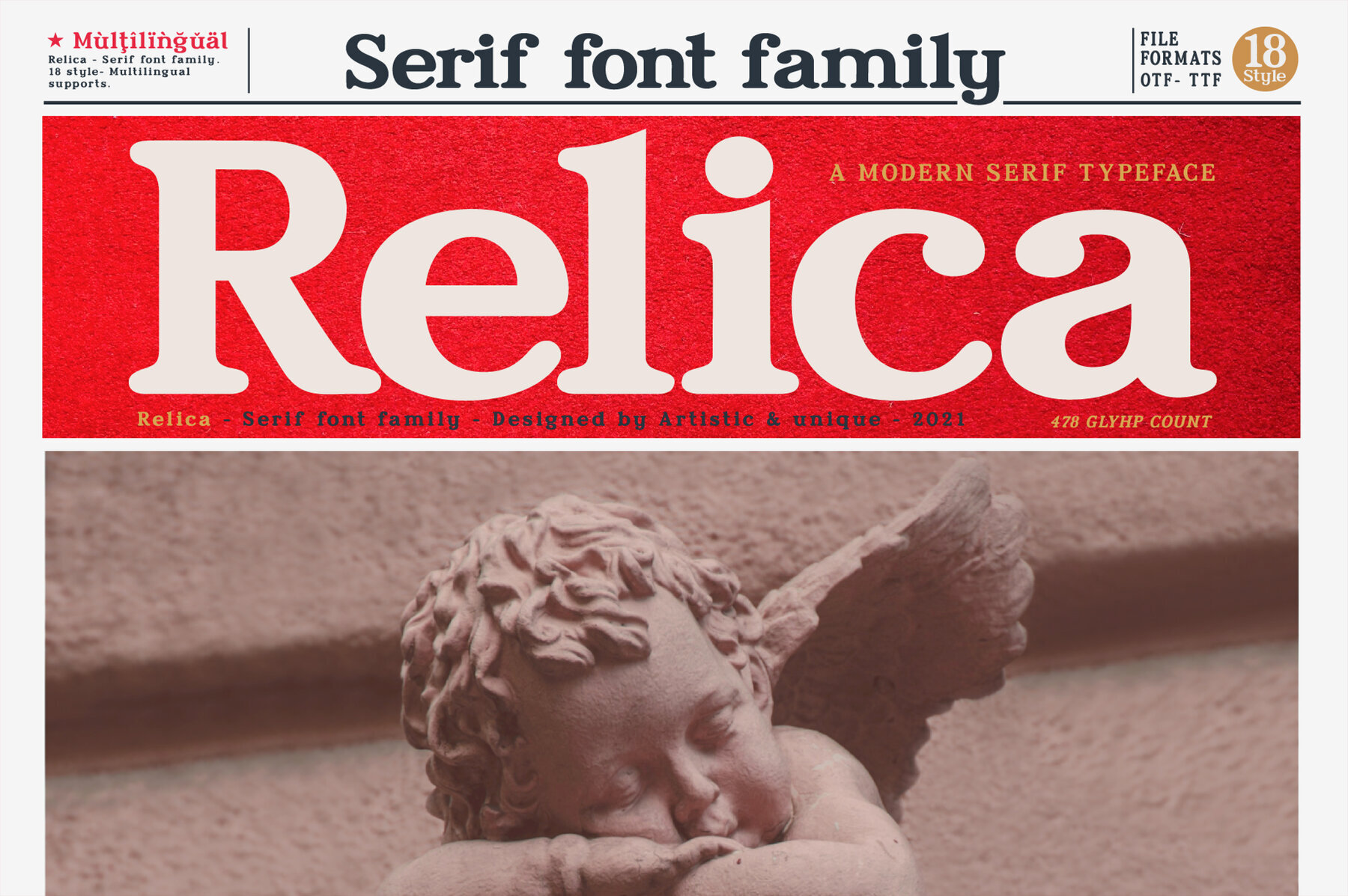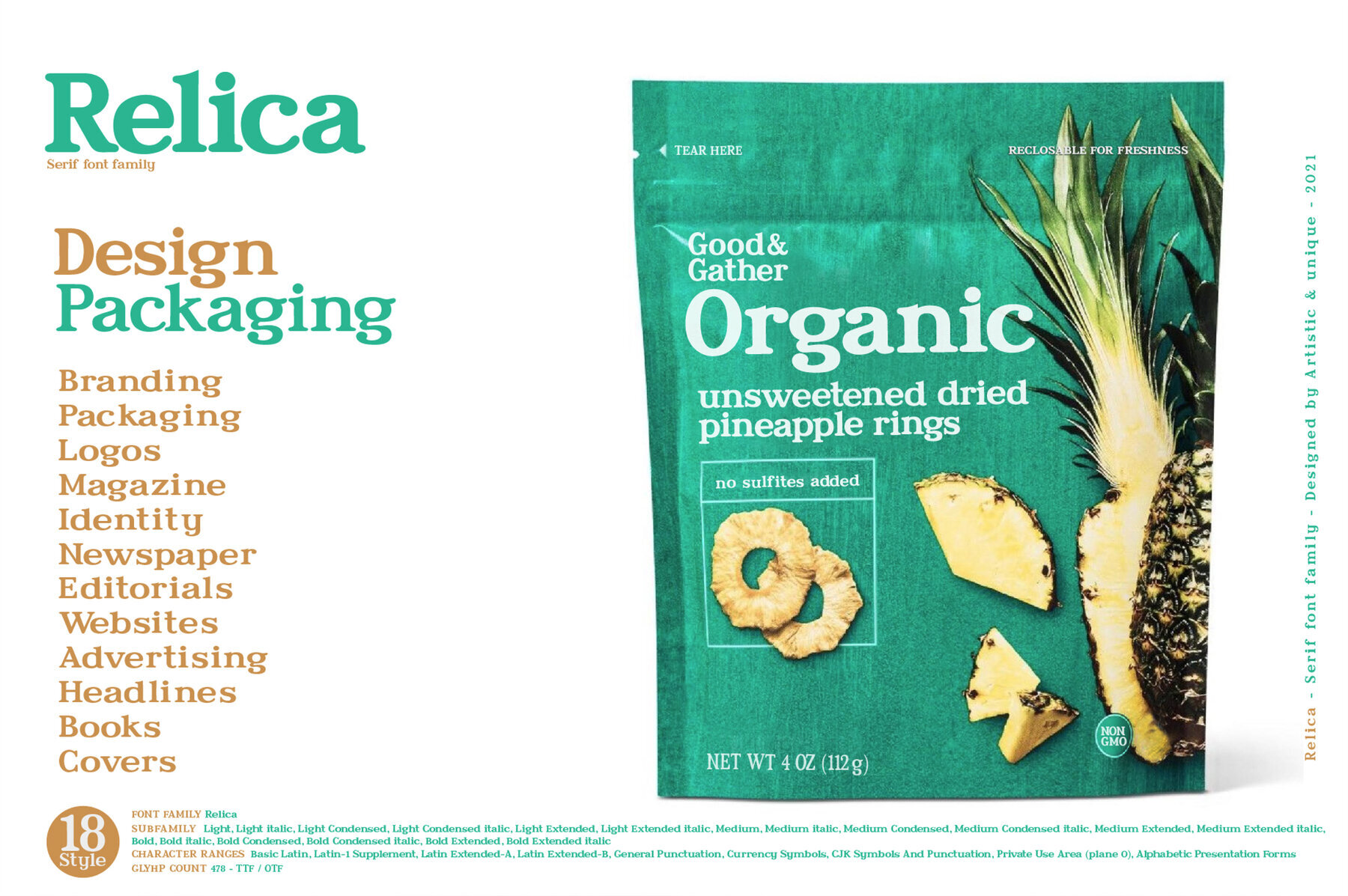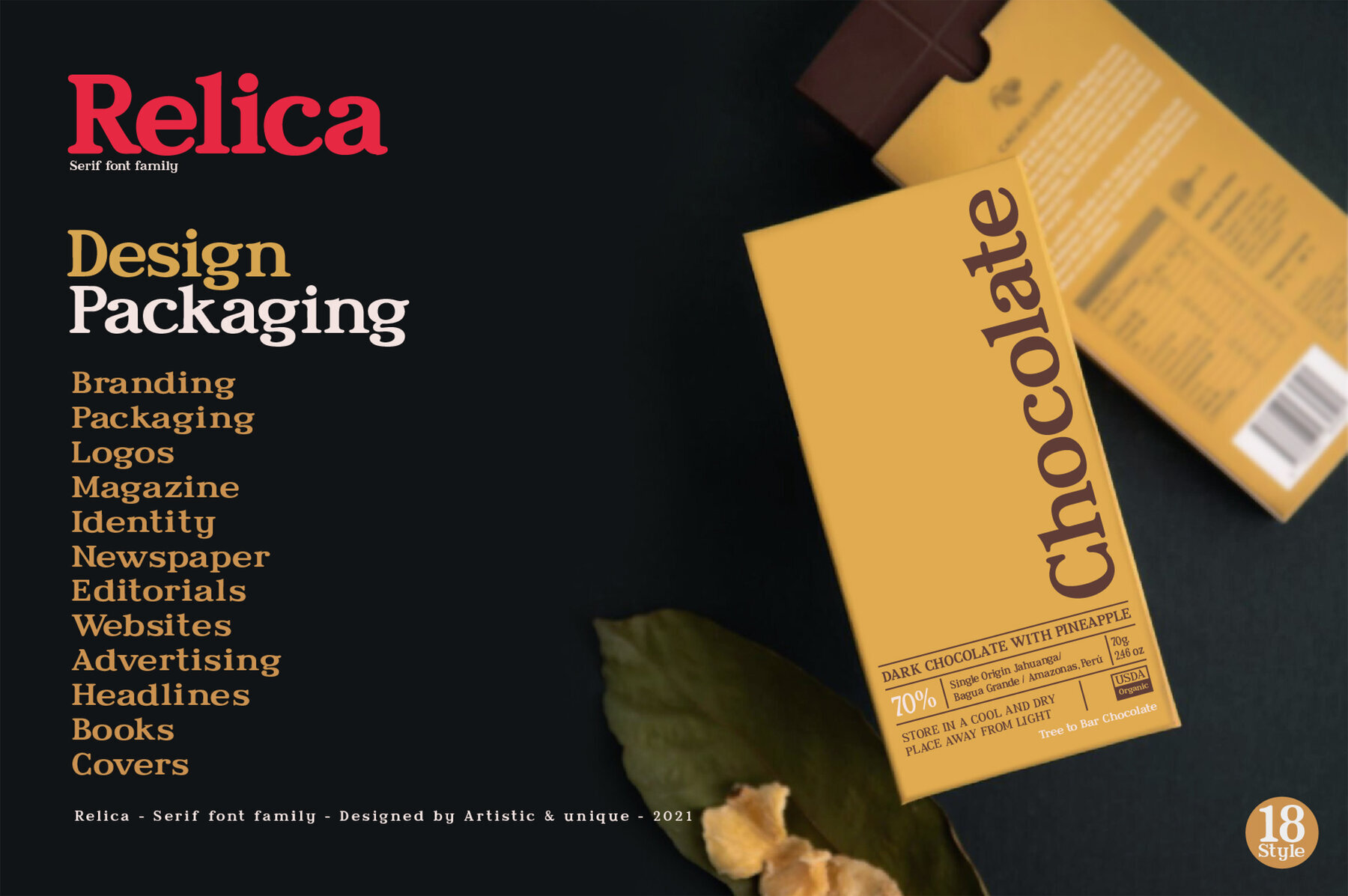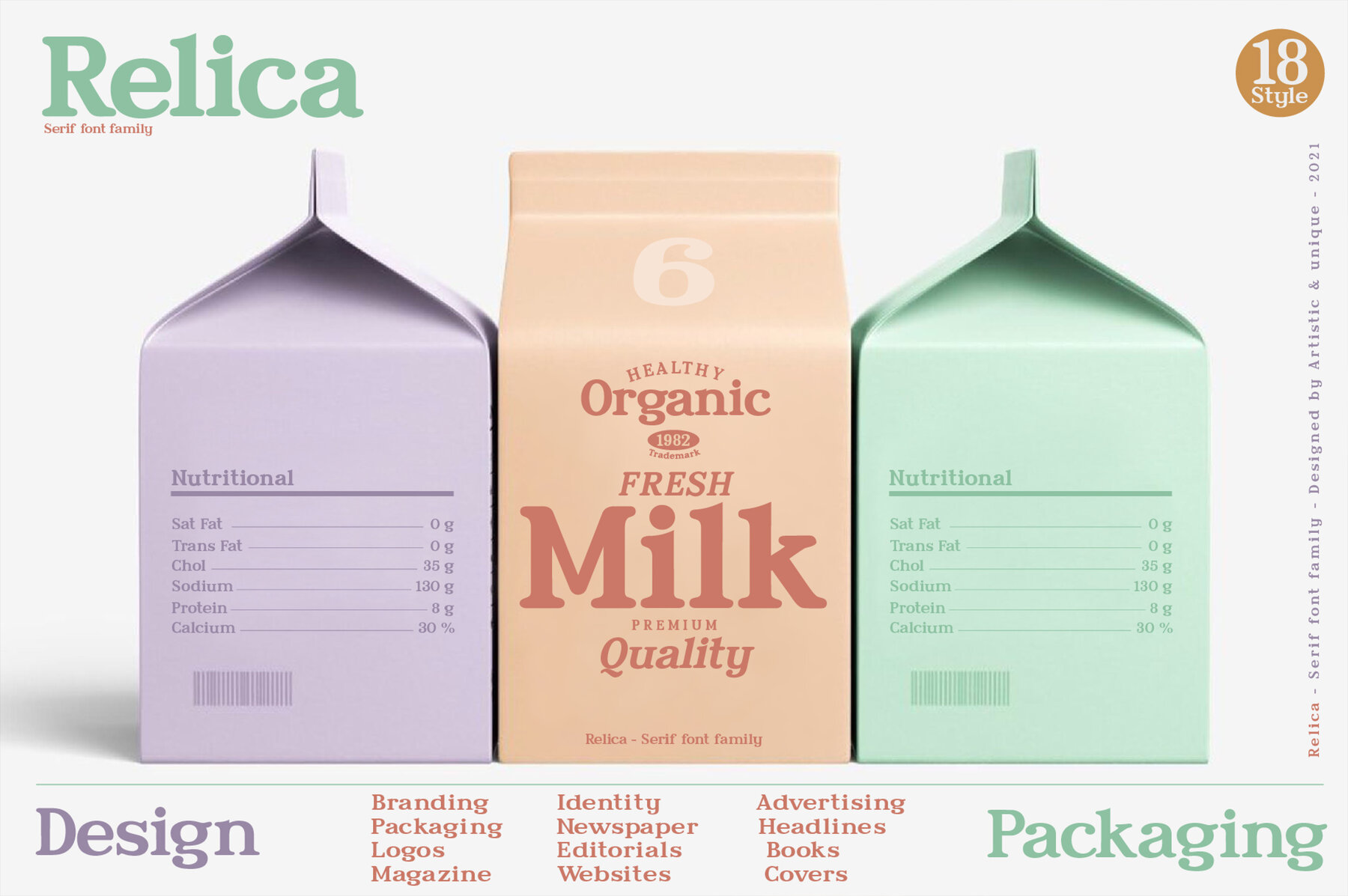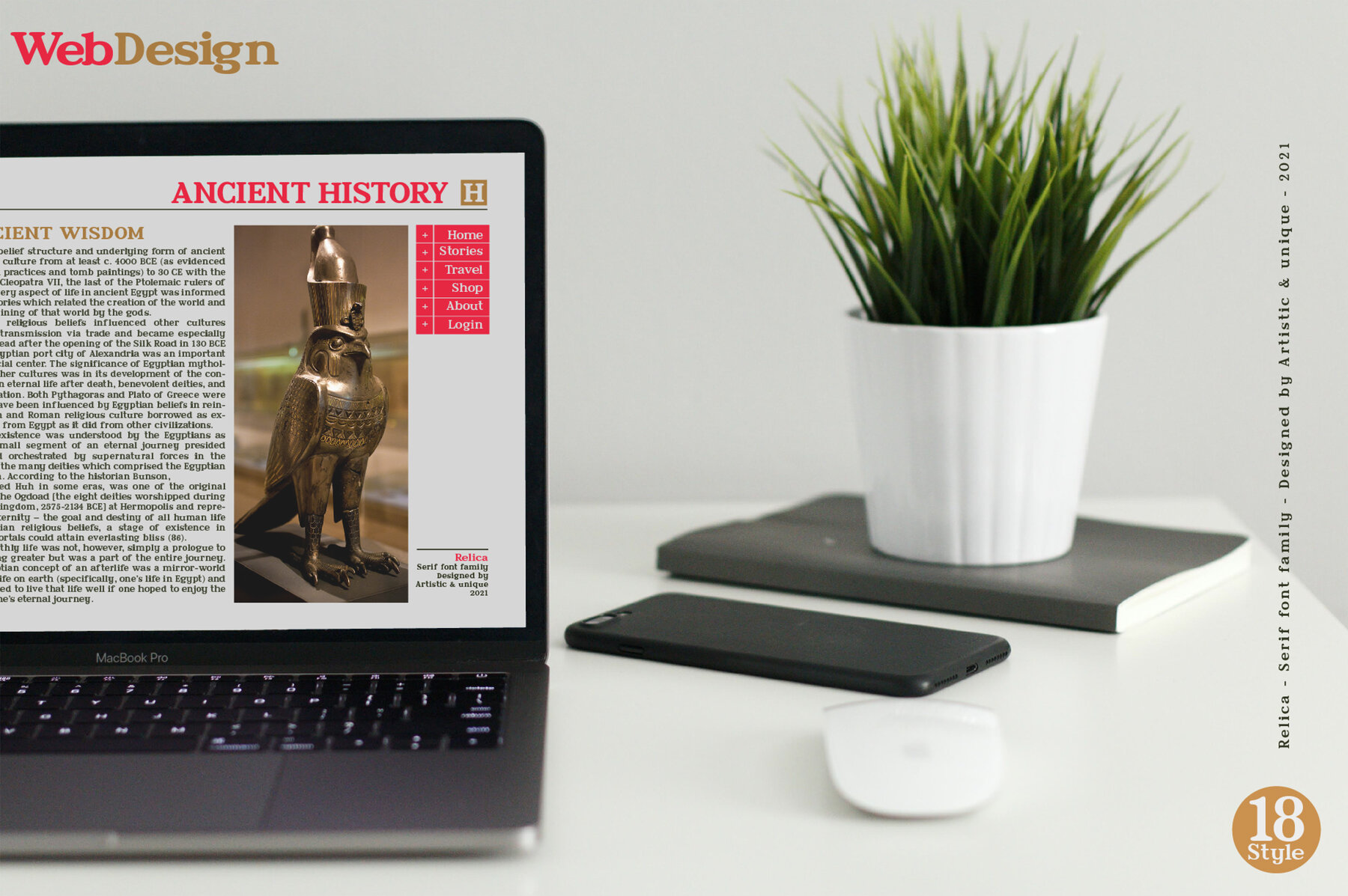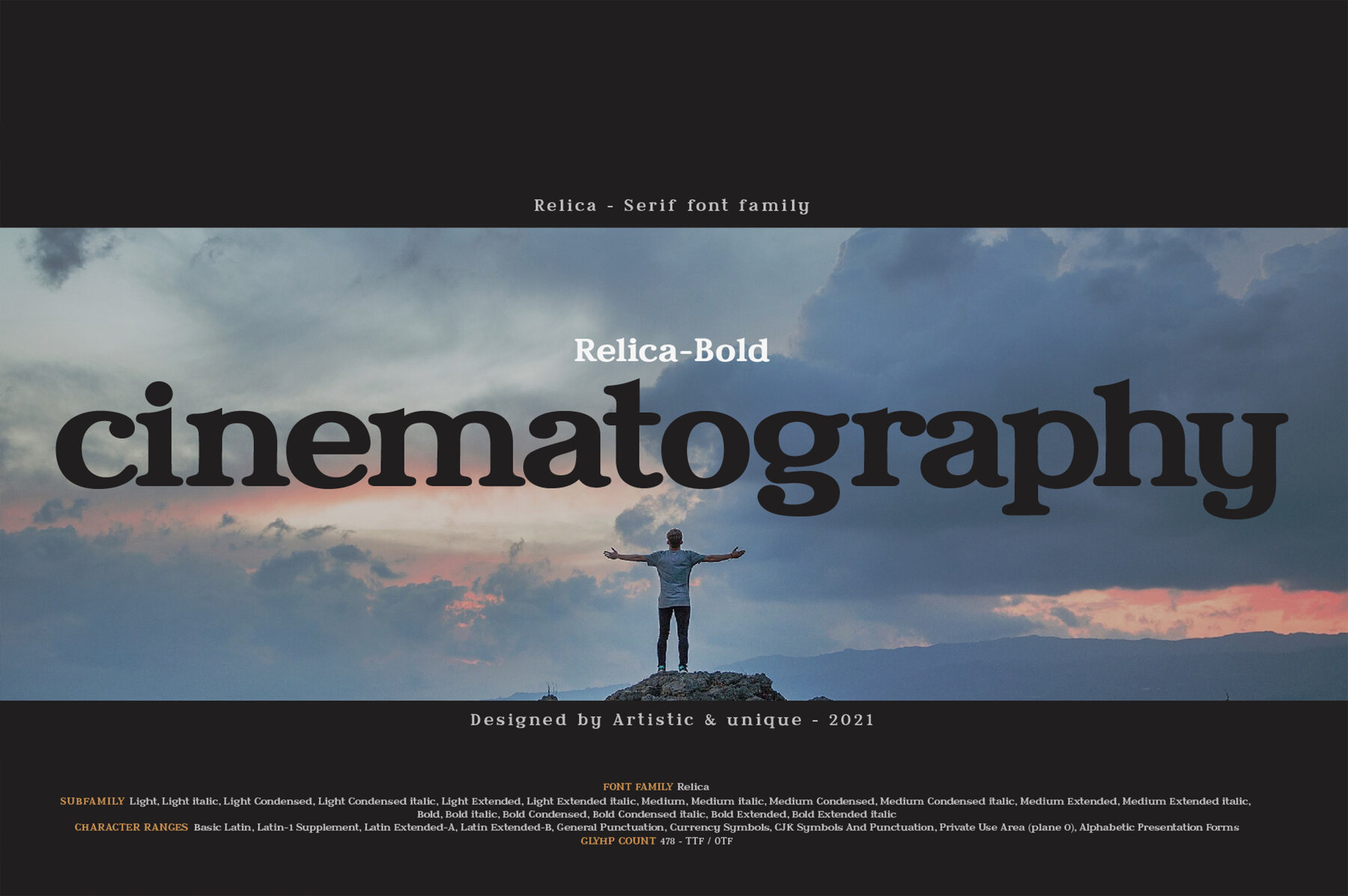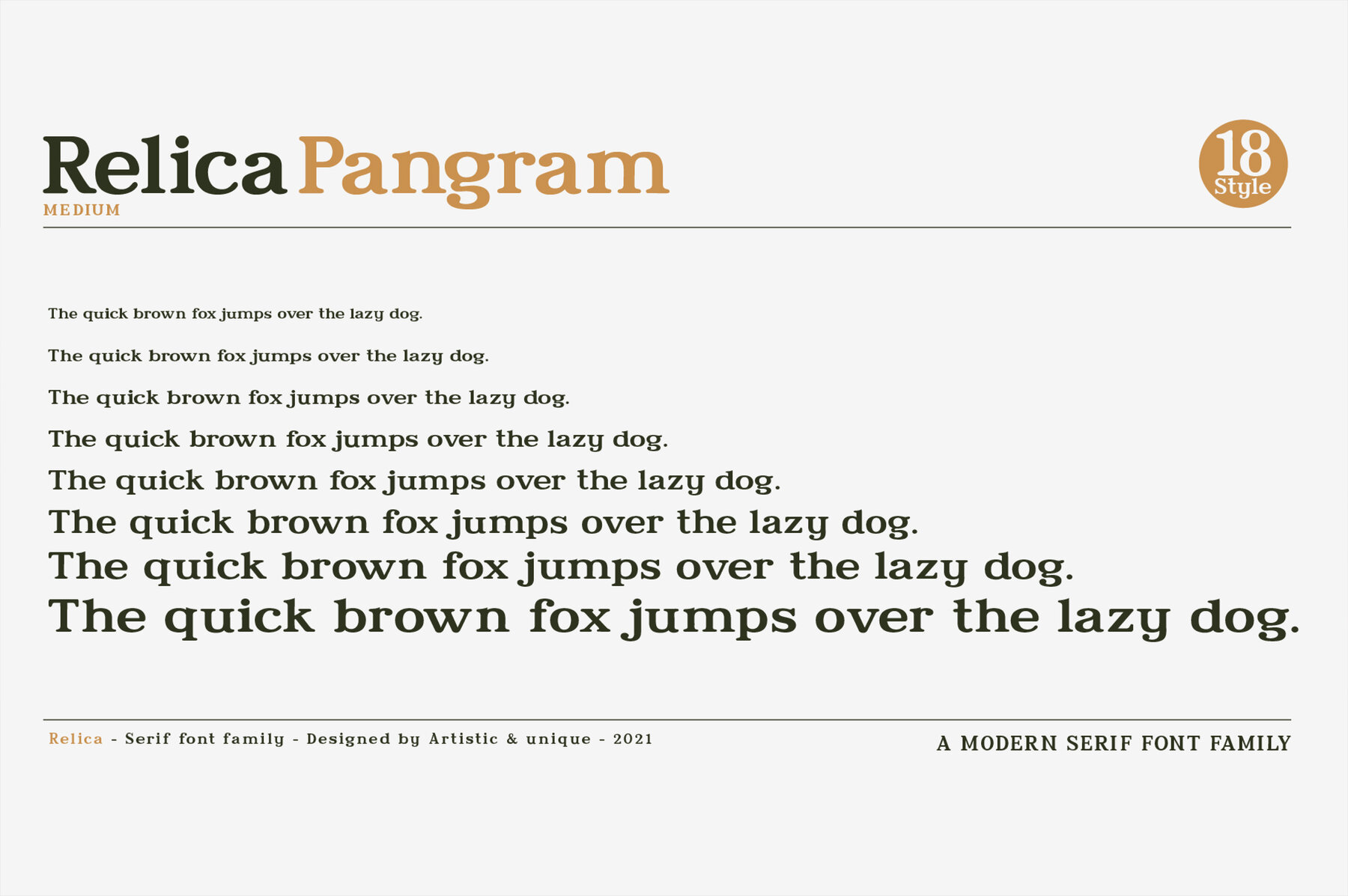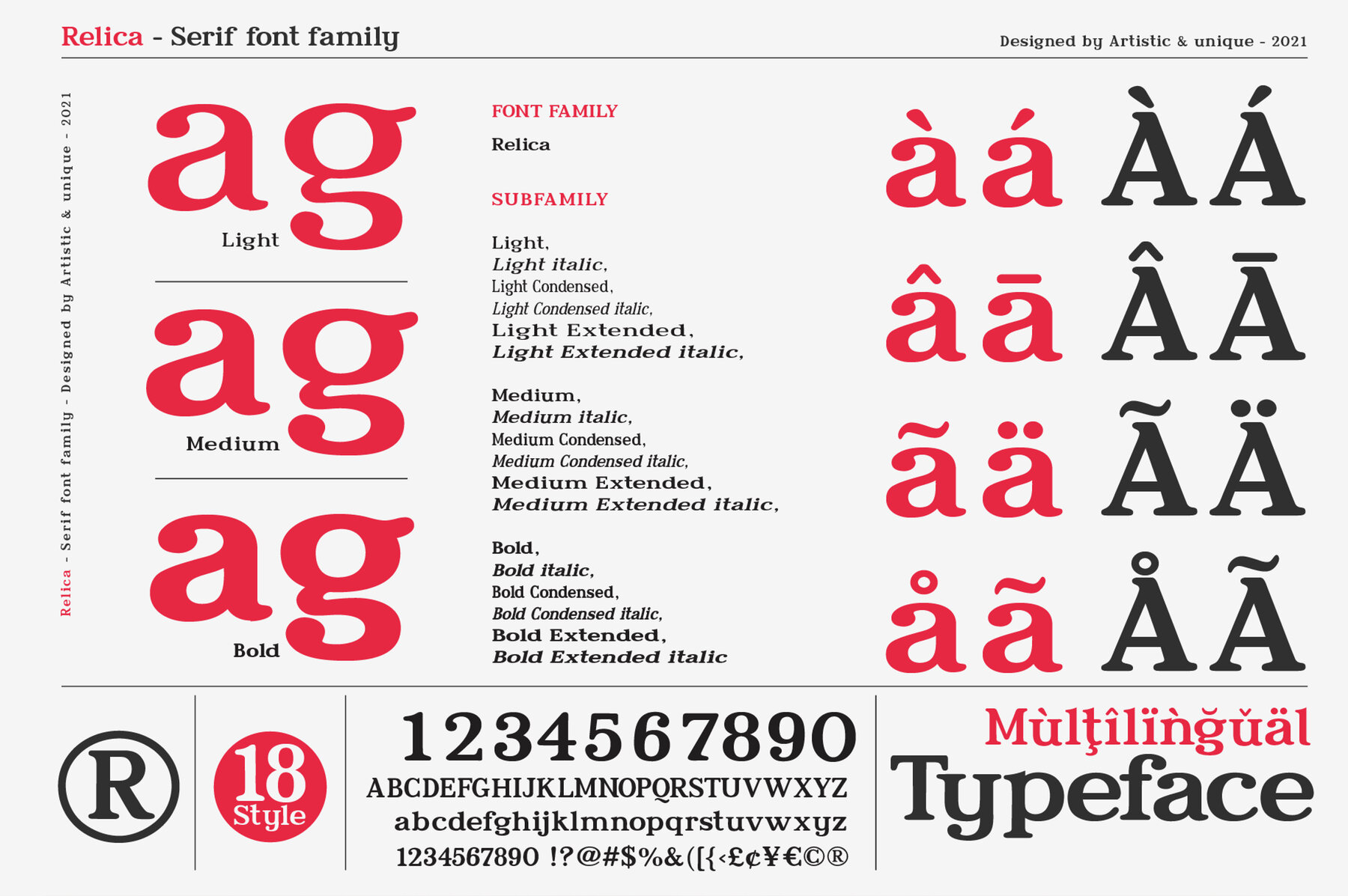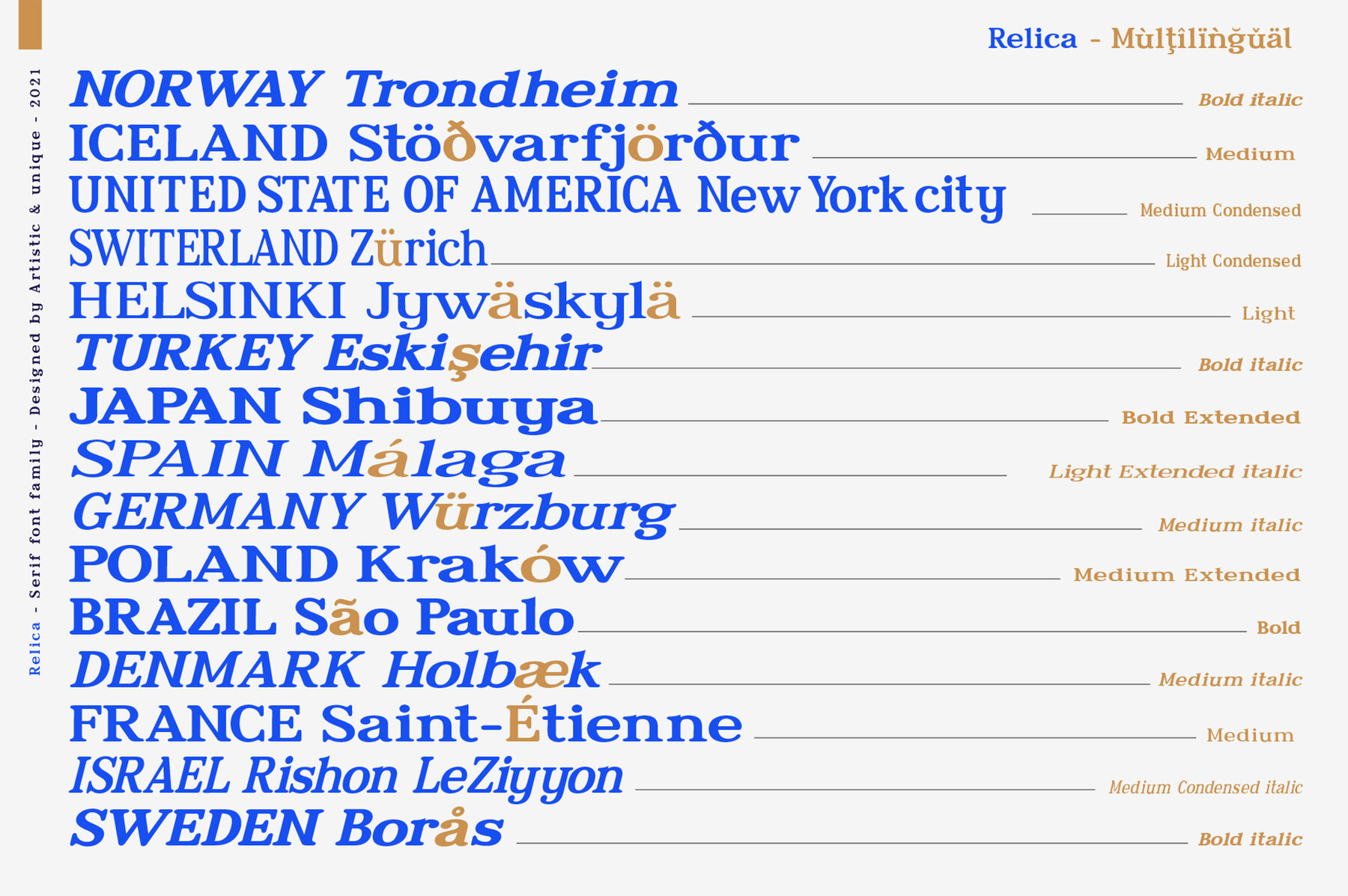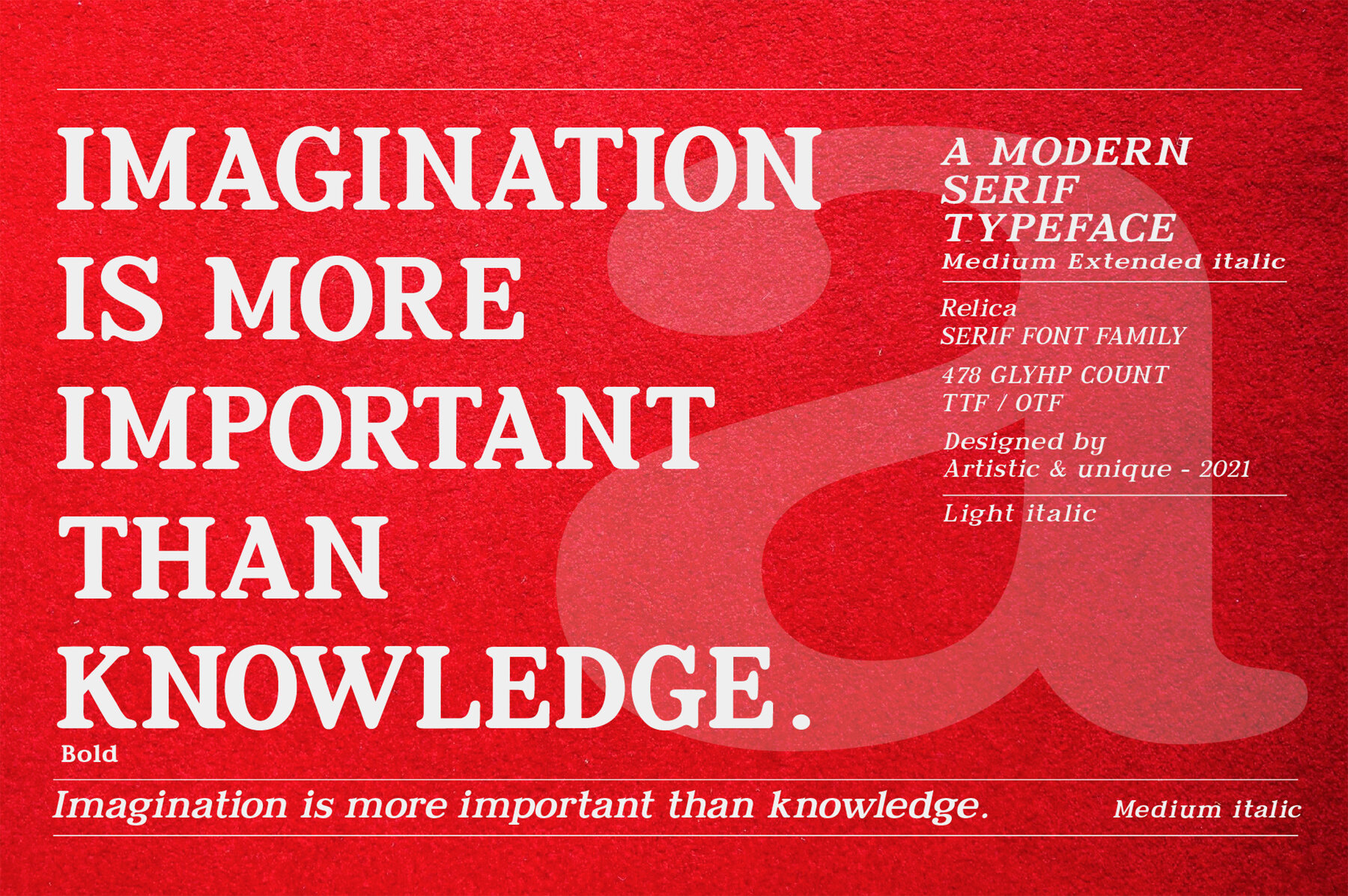
Relica Font
Relica serif font family offers an elegant character with smooth, curved turns suitable for both modern and classic designs. This font is a timeless choice for various projects, ideal for both capital and small letters. Designed to ensure a good overall appearance and easy readability, Relica is perfect for projects such as magazines, books, and newspapers, particularly in publishing. Its soft curved turns make it ideal for branding, logo design, brand identity creation, and packaging design.Relica: 18-Style Serif Font Family with Multilingual Support
Versatile and Readable
Comprehensive Character Set